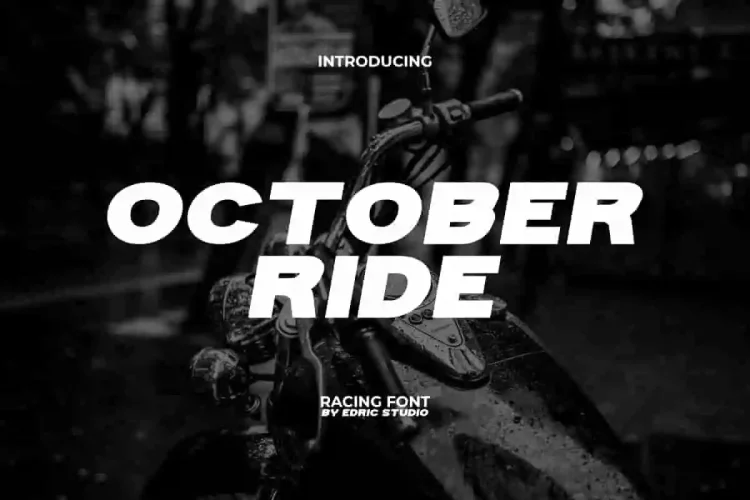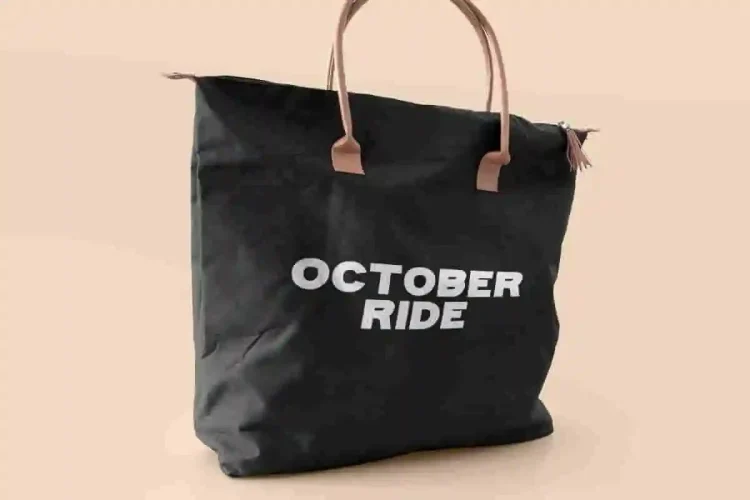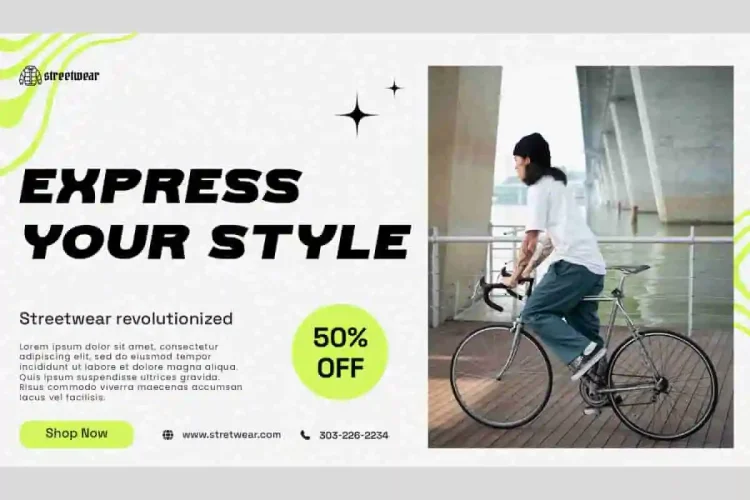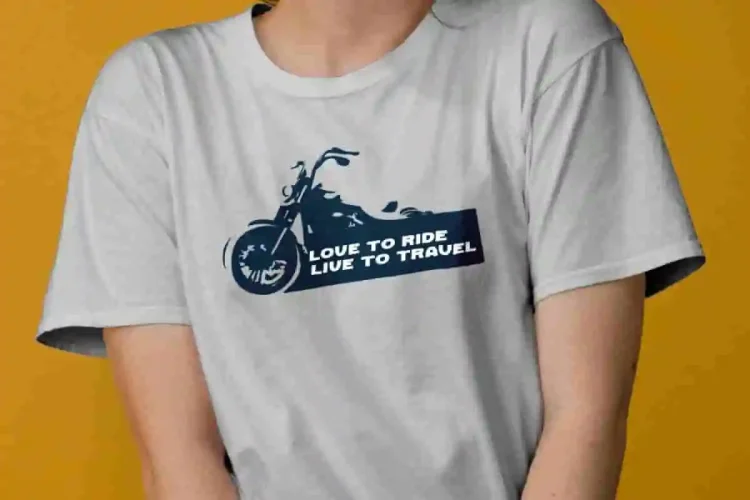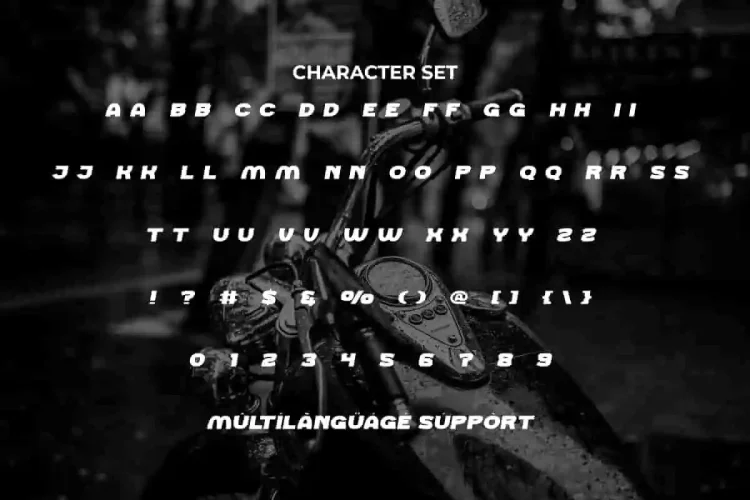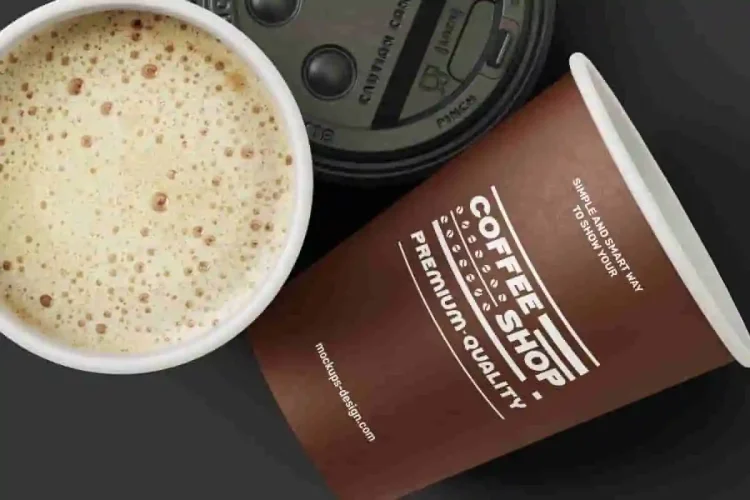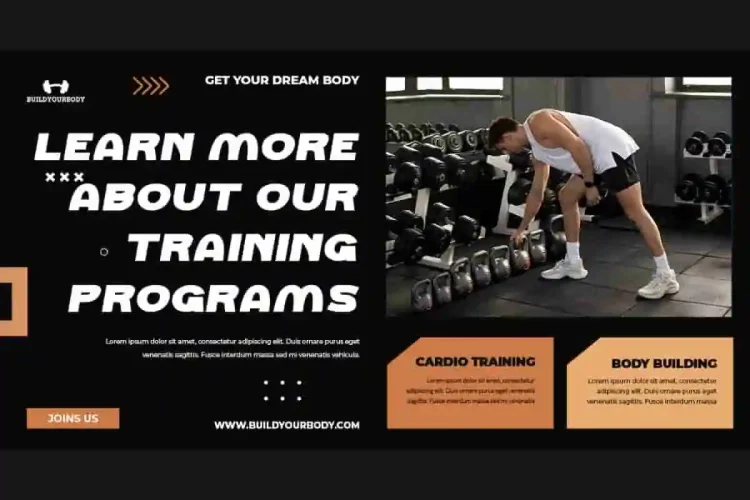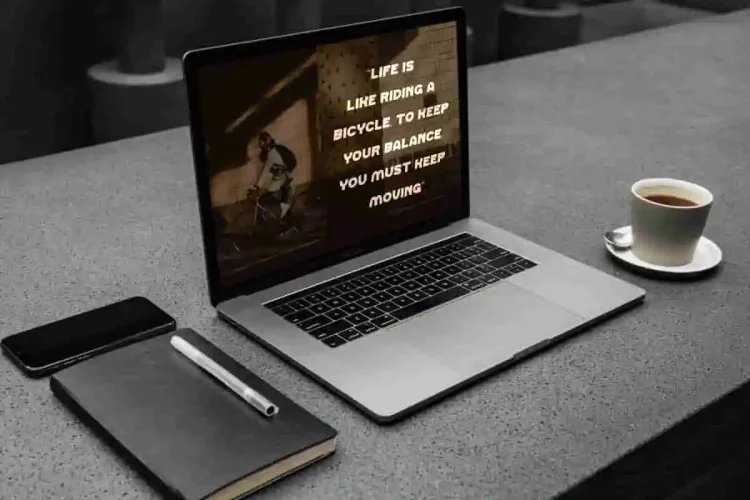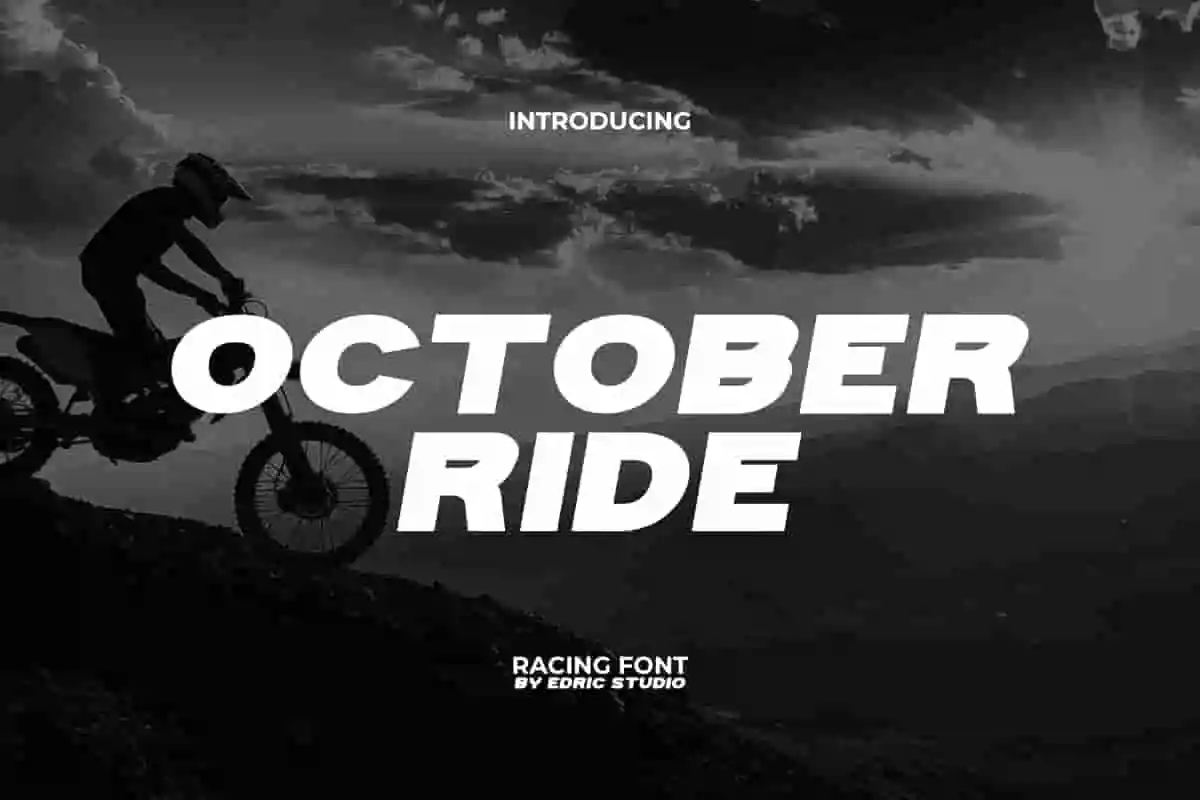
October Ride Font is a fun but modern allcaps font in unique style. Making the main title or other creative customization dominant and eye-catching that can’t be ignored. Perfect for apps, banners, billboard, brand identity, brochure, decal sticker, headline, logos, mockup, packaging, poster, printed materials, stationery, t-shirt screen printing, template, title, website, and many more.
October Ride Font includes a complete set of ALL CAPS for both Uppercase and Lowercase letters, Numbers, Punctuation, and Symbols. With a concise style and thickness that visually looks strong and impactful makes it suitable for accessories and merchandise, advertising, apparel, auto racing, automotive, cafes, cycling, fashion, game, graphic design, gym, motorsports, photography, sportwear, and more.